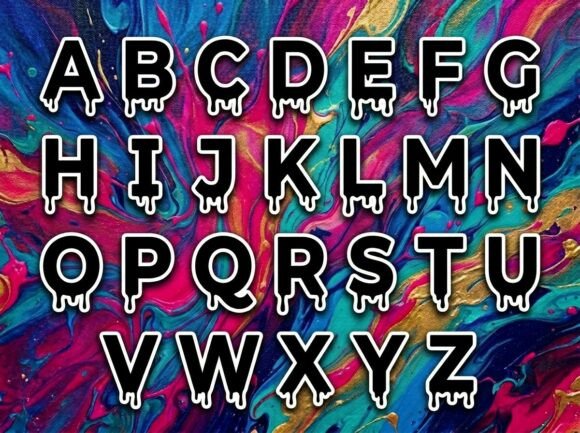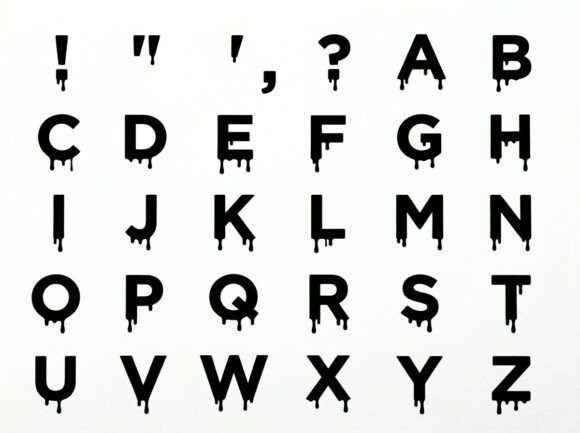
Drip with Creative Energy using Colte: The Bold Display Font for Urban Grit
In the world of typography, few fonts manage to capture the essence of urban grit and creative energy as effectively as Colte. This bold display font is designed to make a statement, with its heavy, rounded letterforms and dramatic “melting” terminals that cascade from the baseline like liquid. If you’re a designer or crafter looking to add a touch of edgy sophistication to your visual storytelling, Colte is an exceptional choice.
The Unique Characteristics of Colte
Colte’s design is characterized by its thick visual weight and smooth, high-contrast outlines. The font’s rounded letterforms are generously proportioned, giving it a friendly and approachable feel that’s perfect for branding and advertising. However, it’s the font’s dramatic terminals that really set it apart. The “melting” effect creates a sense of fluid motion, as if the letters are dripping or flowing across the page. This dynamic aesthetic makes Colte an ideal choice for designs that require a sense of energy and movement.
Perfect for Street Art-Inspired Branding and Design
Colte is a font that’s deeply rooted in street art and urban culture. Its bold, attention-grabbing aesthetic makes it perfect for branding and advertising that requires a strong visual impact. Whether you’re designing for a modern music festival, a bold lifestyle brand, or a streetwear apparel label, Colte delivers a sense of artisanal urban grit that’s sure to resonate with your audience.
Applications for Colte
So, what can you use Colte for? The possibilities are endless, but here are a few ideas to get you started:
- Street art-inspired branding: Use Colte to create bold, eye-catching logos and typography that captures the essence of urban street art.
- Vibrant event posters: Colte is perfect for designing posters and flyers for music festivals, concerts, and other events that require a bold and attention-grabbing aesthetic.
- Edgy apparel design: Add a touch of urban grit to your apparel designs with Colte’s bold, melting letterforms.
- Creative social media headers: Use Colte to create eye-catching social media headers that showcase your brand’s personality and style.
Why Choose Colte?
So, why choose Colte over other bold display fonts? Here are just a few reasons:
- Unique aesthetic: Colte’s “melting” terminals and thick visual weight create a truly unique aesthetic that’s sure to stand out in a crowded design landscape.
- High versatility: Colte can be used for a wide range of design applications, from branding and advertising to apparel and social media.
- Easy to read: Despite its bold aesthetic, Colte is surprisingly easy to read, making it perfect for designs that require a strong visual impact without sacrificing legibility.
If you’re looking for a bold display font that captures the essence of urban grit and creative energy, look no further than Colte. With its unique aesthetic, high versatility, and ease of use, Colte is the perfect choice for designers and crafters who want to add a touch of edgy sophistication to their visual storytelling. So why wait? Download Colte today and start dripping with creative energy!